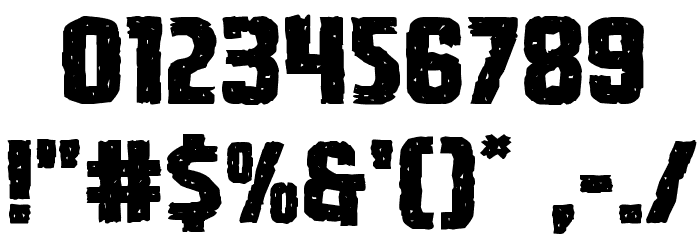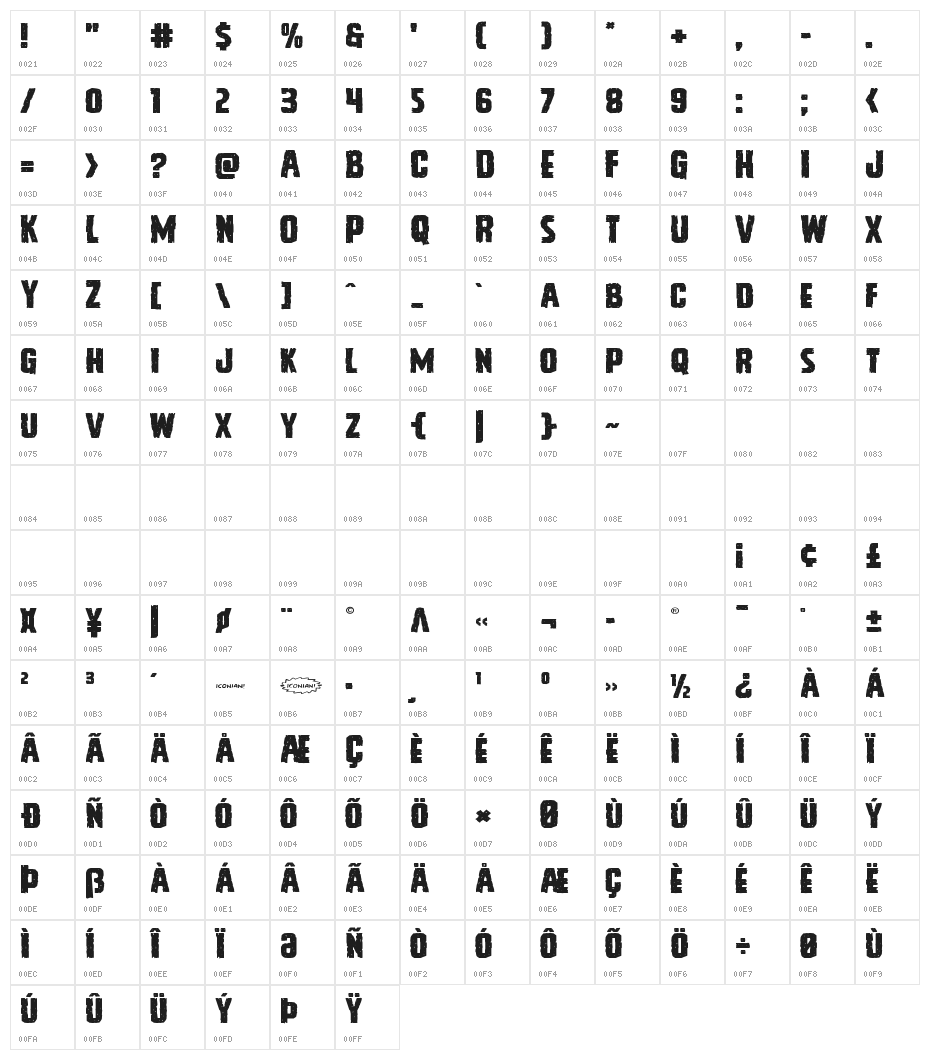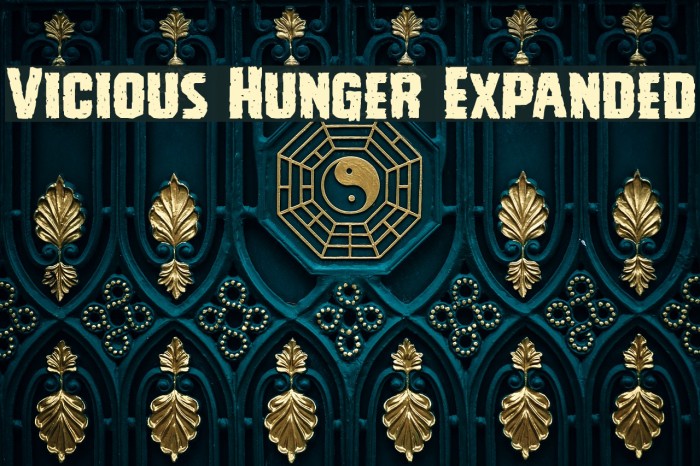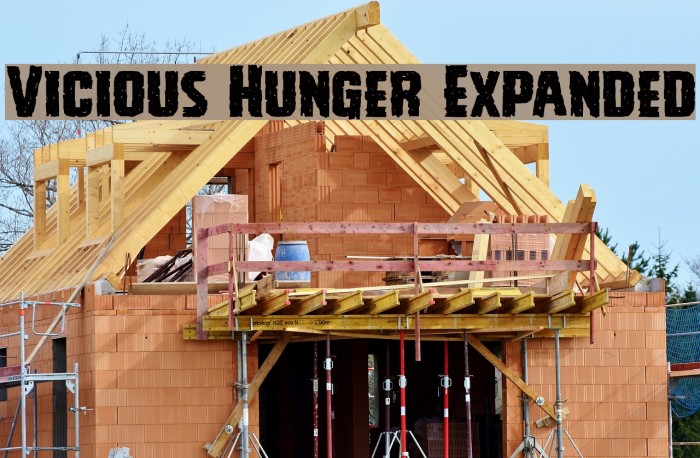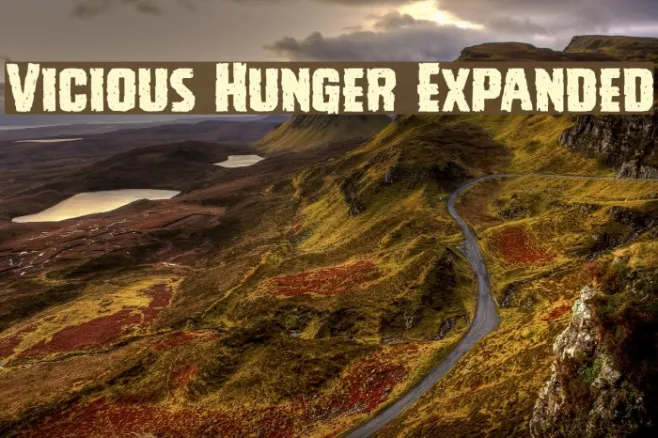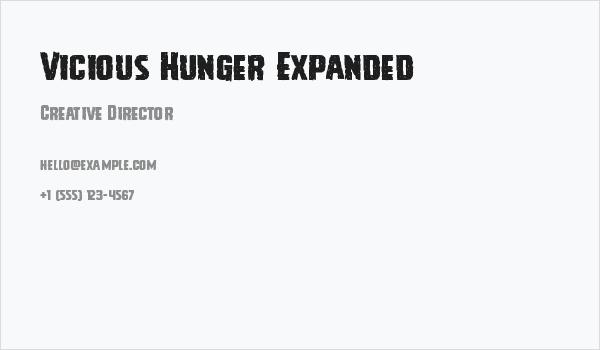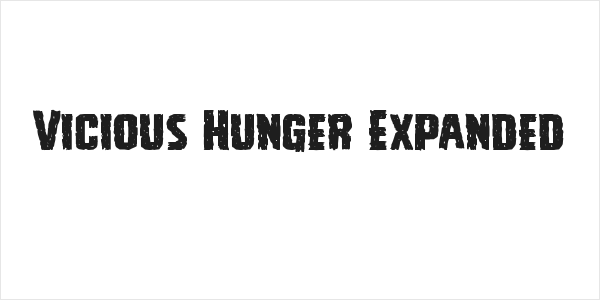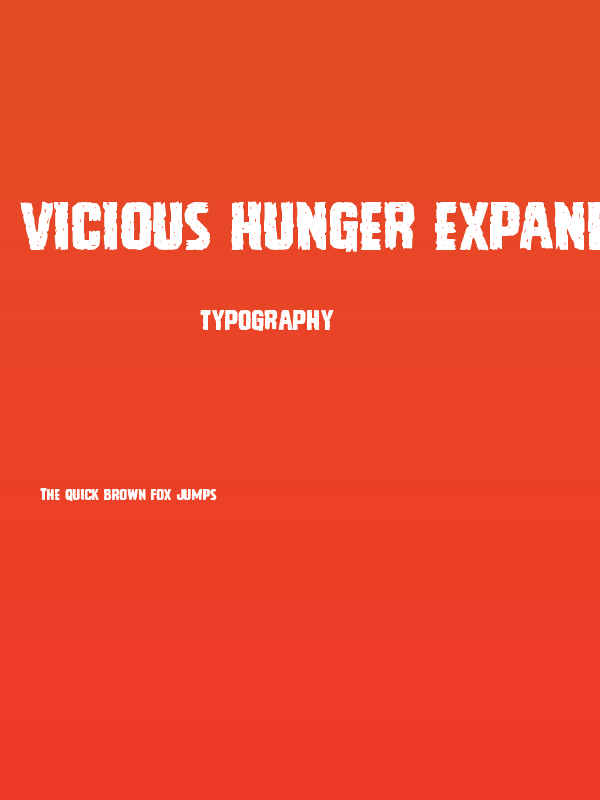
Vicious Hunger Expanded Font
Vicious Hunger Expanded Description
This font features a bold and rugged design with a distressed texture that gives it a gritty, worn appearance. The characters are blocky and robust, with uneven edges that contribute to its raw and aggressive style. The uppercase and lowercase letters maintain a consistent height, enhancing its bold presence. Numbers and special characters follow the same rugged aesthetic, making it suitable for designs that require a strong, impactful look. Its unique style is reminiscent of urban or grunge themes, making it ideal for projects that aim to convey strength and edginess.
| Overall Style | Grunge, Urban, Edgy |
| Proposed Projects | Ideal for posters, album covers, streetwear branding, and any design needing a bold, edgy look. |